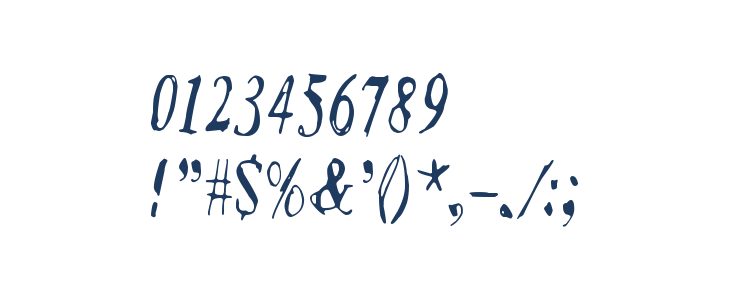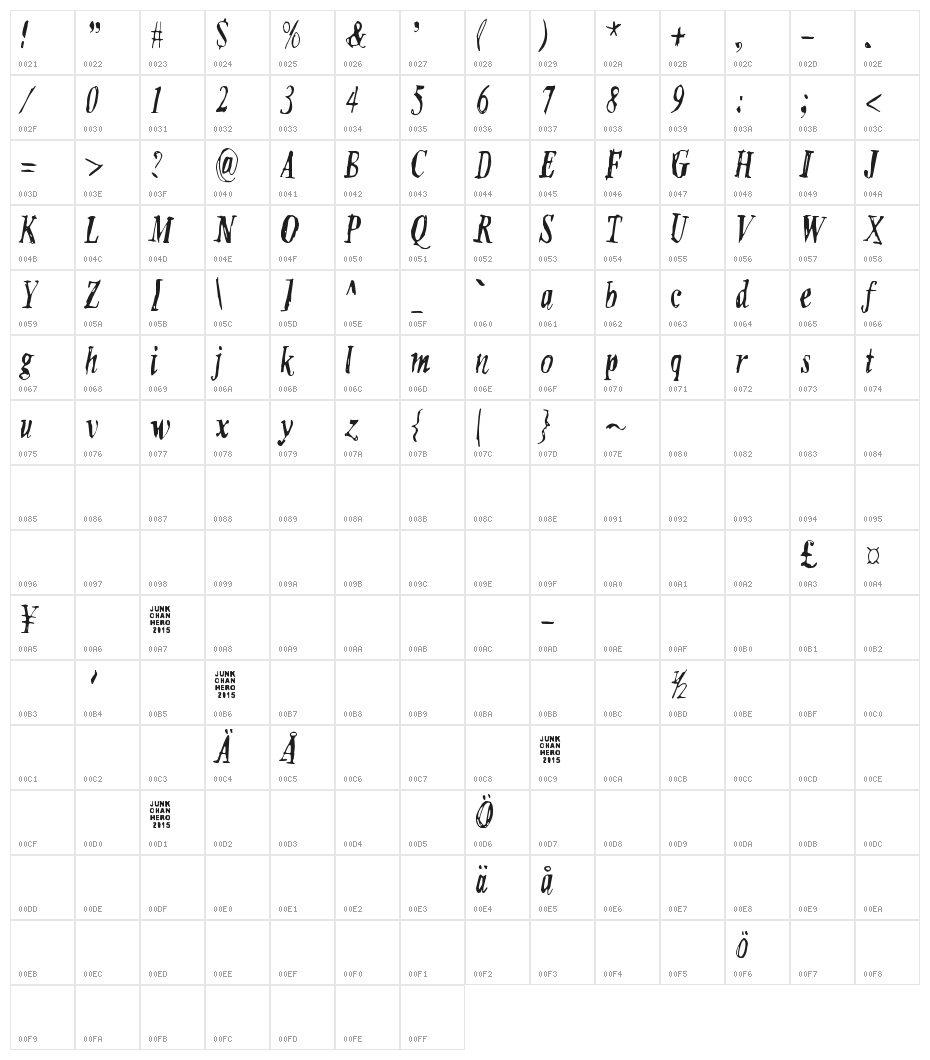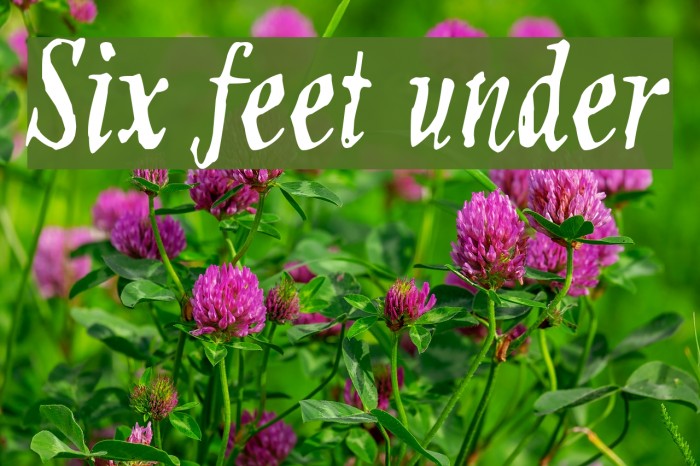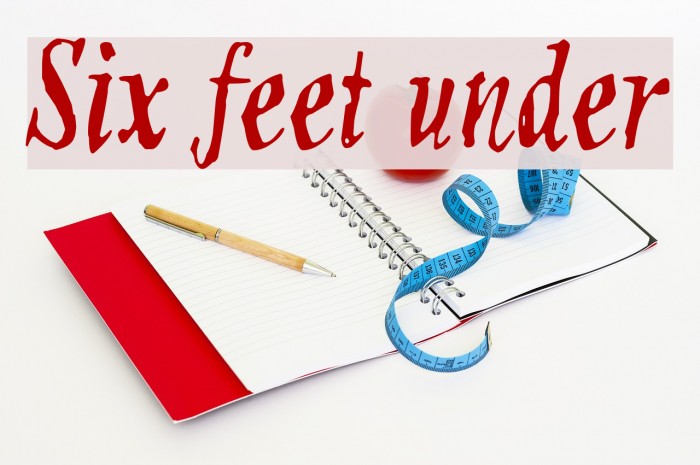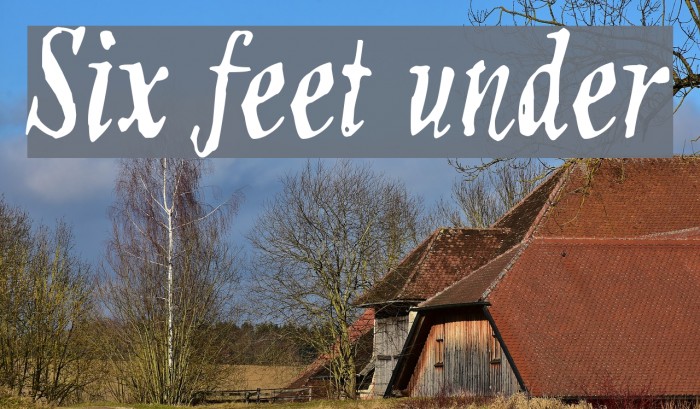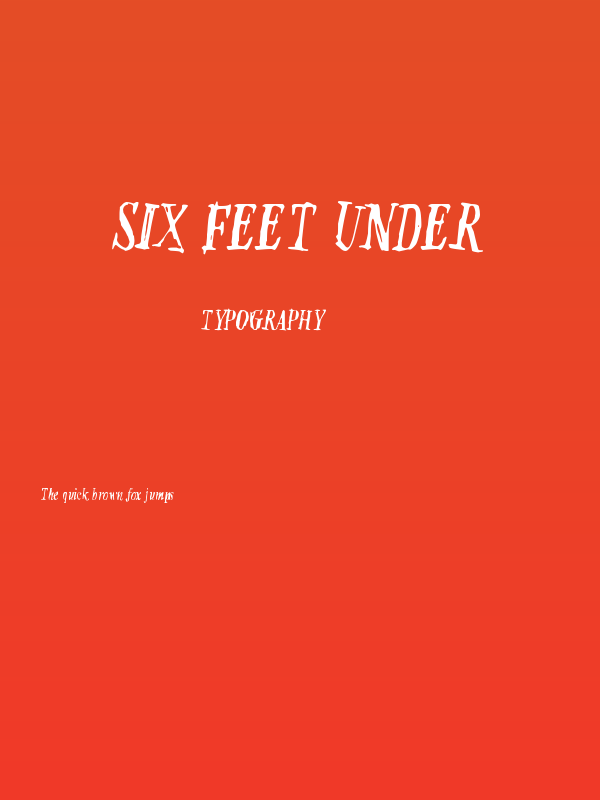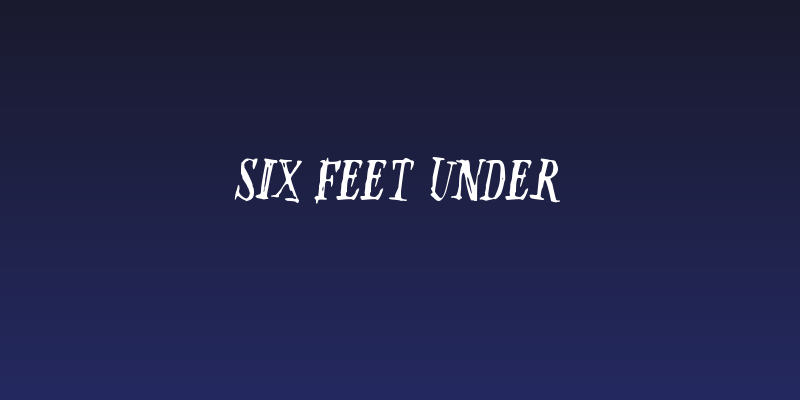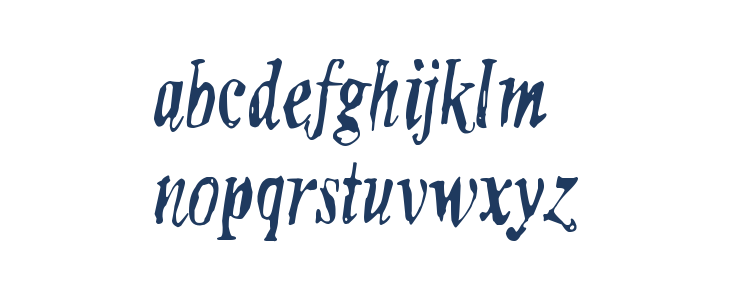
Six feet under Font
Six feet under Description
This font features a bold and expressive style with a hand-drawn appearance. The letters have a slightly irregular and organic form, giving them a unique and artistic flair. The strokes are thick and uneven, creating a sense of movement and energy. This font combines elements of traditional calligraphy with a modern twist, making it stand out with its distinctive character. The uppercase and lowercase letters maintain a consistent style, while the numbers and special characters complement the overall design. This font is ideal for projects that require a bold and creative touch.